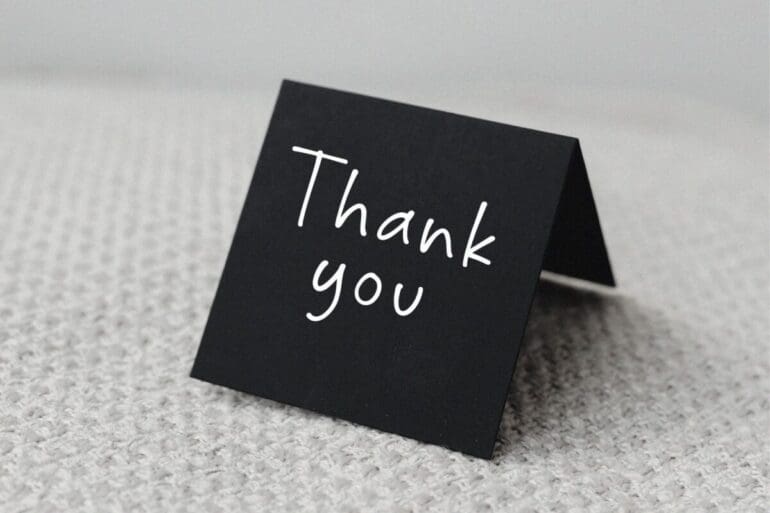
Black Mystique Font
Black Mystique is a lovely handwritten font created with great care, especially for you! 😊
Black Mystique is perfect for product packaging, branding project, magazines, social media, weddings, or just to express words above the background.